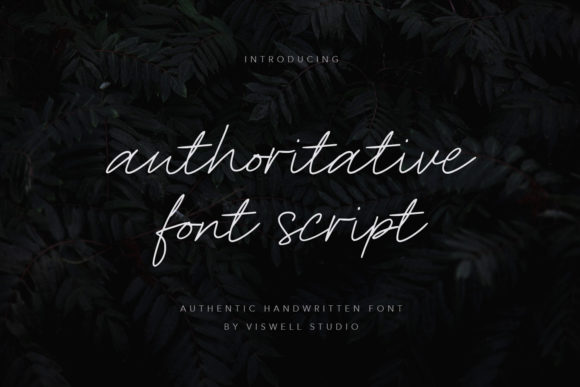
Authoritative Font
**Introducing Authoritative: The Epitome of Elegance and Grace**
In the realm of typography, where letters dance and words take flight, there emerges a font that exudes both authority and allure. Allow us to unveil Authoritative, a script font meticulously crafted to captivate hearts and elevate your designs to new heights.
Authoritative Font was designed with a singular purpose: to lend an air of sophistication and refinement to every project it adorns. Its thin, graceful lines evoke a sense of understated elegance, while its flowing curves add a touch of femininity and charm. Picture your name penned in Authoritative, each letter a sweeping stroke of beauty that commands attention yet invites admiration.
This font is the ideal choice for those seeking to make a lasting impression. Its versatility extends from the delicate intricacies of wedding invitations to the bold statements of social media posts. Envision your words taking shape in Authoritative, each character a testament to your impeccable taste and discerning eye.
But Authoritative is more than just a collection of letters. It is an expression of your personality, a reflection of your style. Whether you're a creative professional, a budding artist, or simply someone who appreciates the art of written expression, Authoritative will elevate your words to new heights of beauty and distinction.
So embrace the allure of Authoritative, the font that will transform your designs into masterpieces. Let its graceful curves guide your pen and inspire your creativity. Allow Authoritative to be the voice of your most cherished words, conveying your messages with a touch of elegance and a whisper of timeless charm.
**Features:**
* Thin, graceful script font
* Perfect for wedding invitations, stationary art, and social media posts
* Versatile and stylish
* Designed to elevate your words to new heights of beauty and distinction
**Benefits:**
* Adds a touch of sophistication and refinement to your designs
* Captivates hearts and commands attention
* Makes a lasting impression
* Expresses your personality and style
* Inspires your creativity